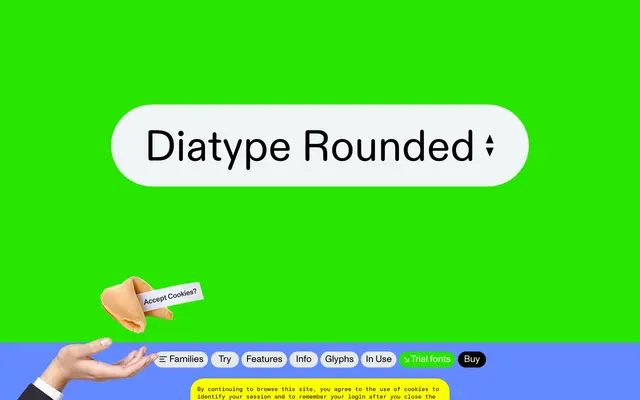
ABC Diatype Rounded
Dinamo Typefaces · Dinamo (Johannes Breyer & Fabian Harb, with Elias Hanzer, Renan Rosatti & Arnaud Chemin) · 2021
ABC Diatype Rounded specimen from Dinamo Typefaces
The rounded sibling of Diatype, with proportional, mono and semi-mono cuts and a slightly mechanical, curvy feel.
A rounded neo-grotesque by Johannes Breyer and Fabian Harb with Elias Hanzer, Renan Rosatti and Arnaud Chemin, sharing Diatype's Swiss skeleton but softening every terminal. Comes in proportional, monospaced and semi-monospaced cuts across the wider Diatype weight range, with italics. Has a slightly engraved, mechanical feel rather than the squishy roundness of typical soft sans.
Dinamo describes Diatype Rounded as a warm, curvy sans informed by the Swiss Neo-grotesque genre and pre-digital typesetting machines, with rounded forms that read mechanically as if engraved with a chunky tool, available in proportional, mono and semi-mono cuts.